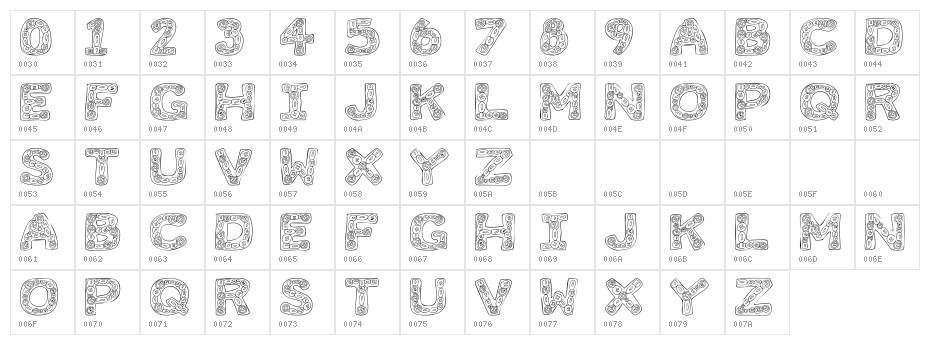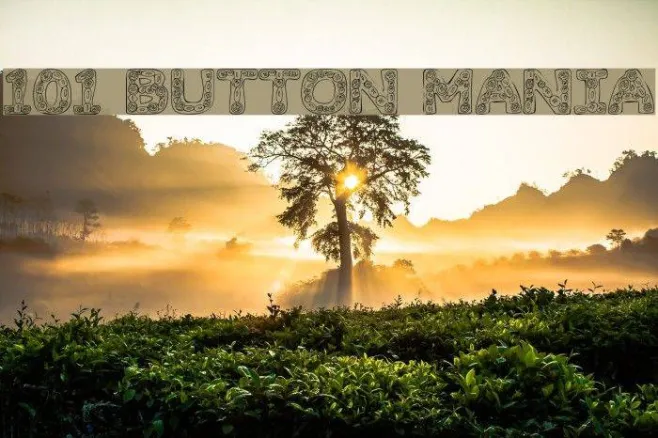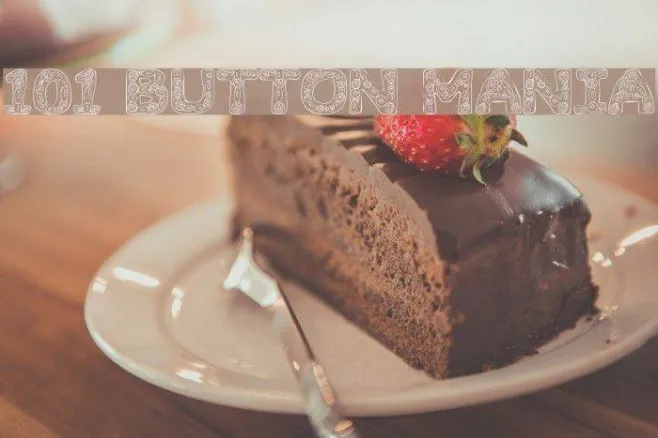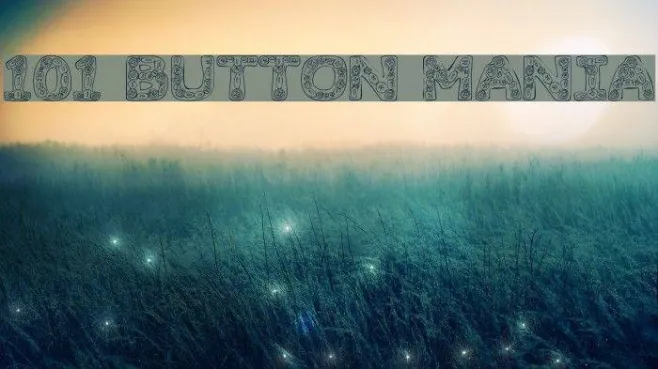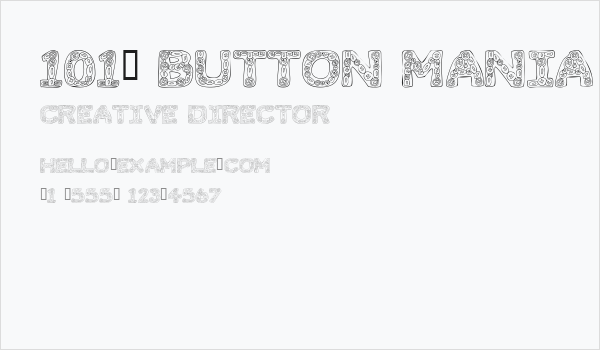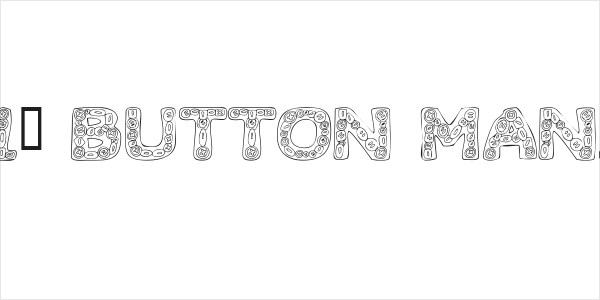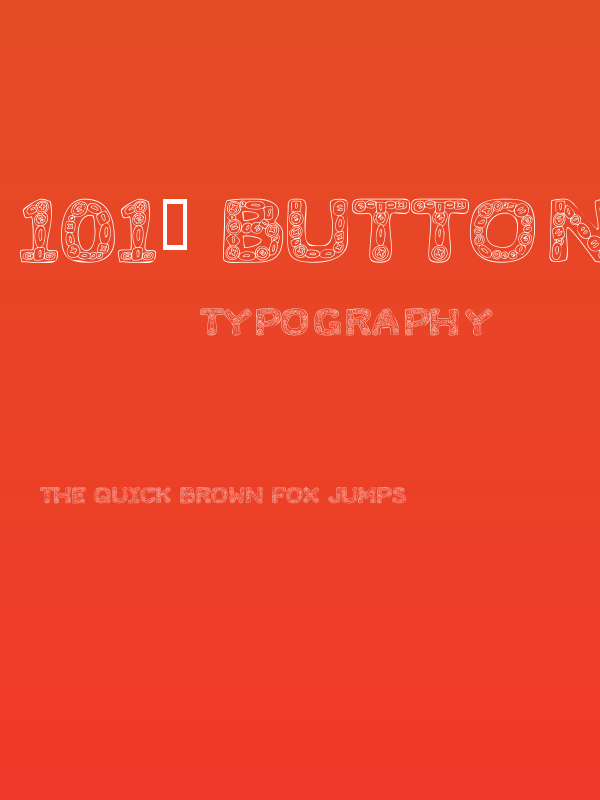
101! Button Mania Font
101! Button Mania Description
This playful and decorative font features a unique button-like pattern within each character, giving it a whimsical and textured appearance. The letters are bold and rounded, with intricate details that resemble a collection of buttons sewn together. This design creates a sense of fun and creativity, making it ideal for projects that require a touch of personality and charm. The font maintains a consistent style across uppercase, lowercase, and numeric characters, ensuring versatility in various design contexts. Its distinctive look is perfect for capturing attention and adding a playful element to any visual composition.
| Proposed Projects | Ideal for children's book covers, playful branding, craft projects, and creative posters. |